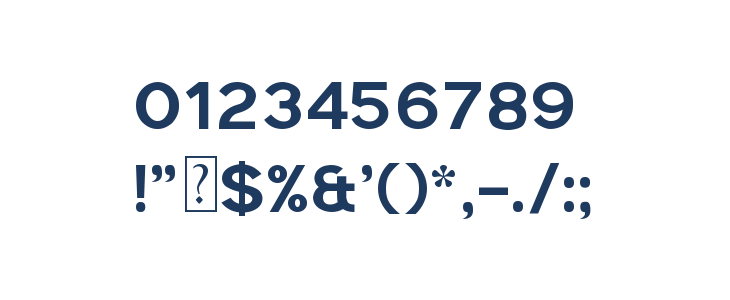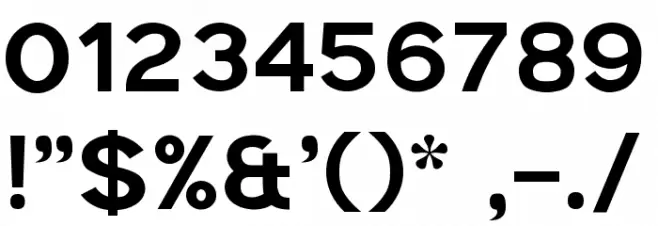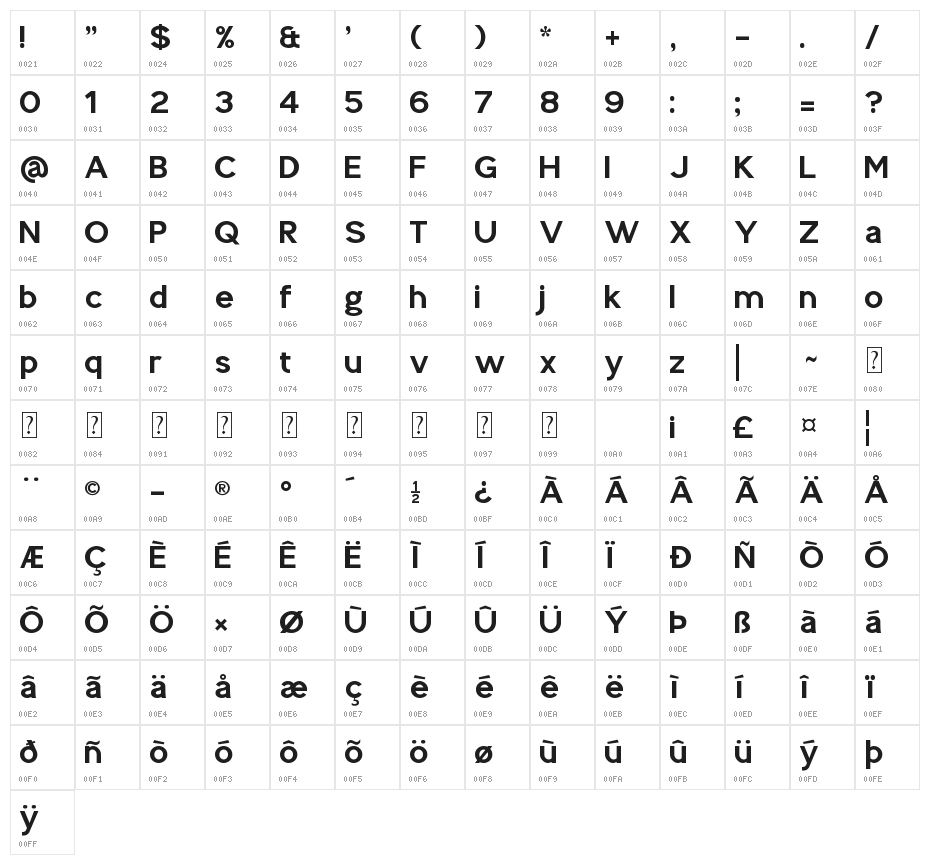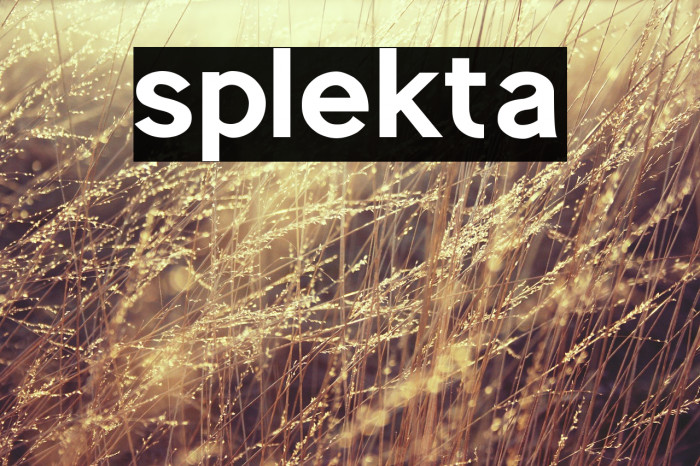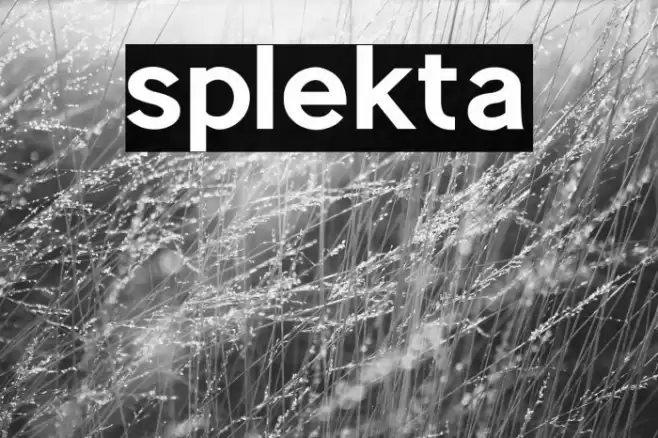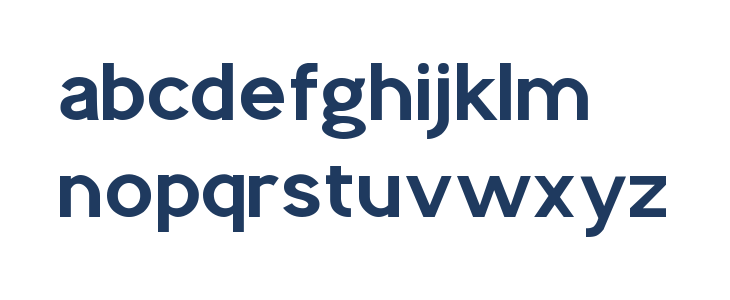
splekta Font
splekta Description
This font features a clean and modern sans-serif style with uniform stroke widths, providing a balanced and professional appearance. The uppercase and lowercase letters are well-proportioned, with a slight geometric influence that adds to its contemporary feel. The numerals are clear and easily distinguishable, making them suitable for various applications. Special characters are designed with the same attention to detail, ensuring consistency across all glyphs. The overall design is versatile, making it suitable for both digital and print media.